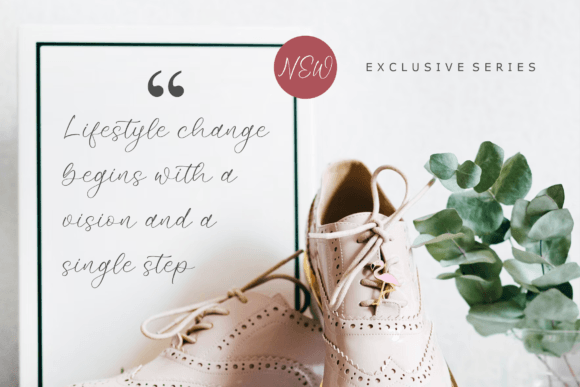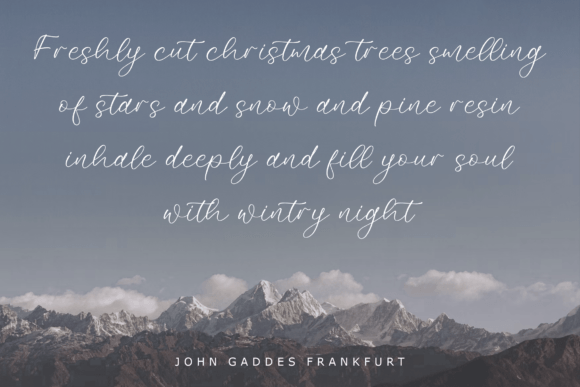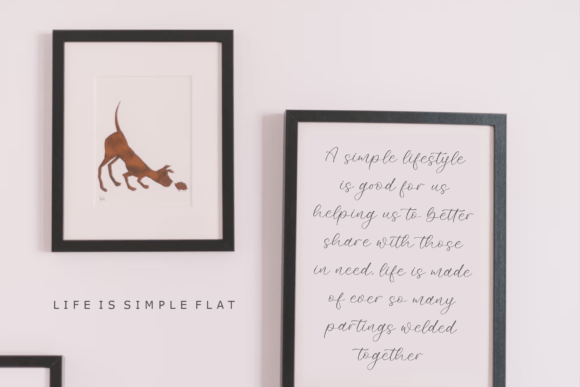
Introduction to Rowmant Alonshie Font
Have you ever stumbled upon a beautiful handwritten note or a vintage sign that sparks inspiration for your next creative project? For designers, those moments of serendipity can be a treasure trove of ideas. As you’re searching for the perfect design resource, you might come across the elegant script font, Rowmant Alonshie Font. This versatile font is a game-changer for any project that requires a touch of sophistication and charm.
Whether you’re working on a branding project, creating homeware designs, or crafting a special event invitation, Rowmant Alonshie Font is an excellent choice. Its high-quality design and transparent background make it easy to integrate into any project, ensuring a seamless and professional look. And the best part? This beautiful font is available for free download, making it a valuable resource for designers of all levels.
With its wide range of applications, from logos to product packaging, Rowmant Alonshie Font is an essential addition to any designer’s toolkit. Its elegant script style adds a personal touch to any creative project, making it a must-have for designers who value high-quality design resources.
Key Features of Rowmant Alonshie Font
- Unique and elegant design, perfect for creative projects requiring a touch of sophistication.
- Comes with a transparent background, allowing for seamless integration into various design resources.
- High-quality font with precise details, ideal for printing and digital applications.
Honest Review: Rowmant Alonshie Font
I recently came across the Rowmant Alonshie Font, and I must say it’s been a great addition to my design resource library. This free download has been a game-changer for my creative projects, offering a unique and elegant touch that sets them apart.
One of the things that works well for me is the transparent background option, which allows me to seamlessly integrate the font into my designs without any visual clutter. The high quality of the font is also noteworthy, making it perfect for both digital and print projects.
- Unique and elegant design
- High quality
However, I do have to mention a few limitations. The font doesn’t come with a wide range of styles, which might limit its versatility for certain projects. Additionally, the font is only available in a single weight, which can make it difficult to achieve the desired level of contrast in some designs.
Overall, I’m impressed with the Rowmant Alonshie Font and would definitely recommend it to fellow designers. While it may not be perfect, its unique design and high quality make it a valuable addition to any design resource library. ⚠️ Just be aware of its limitations, and you’ll be good to go! ✨